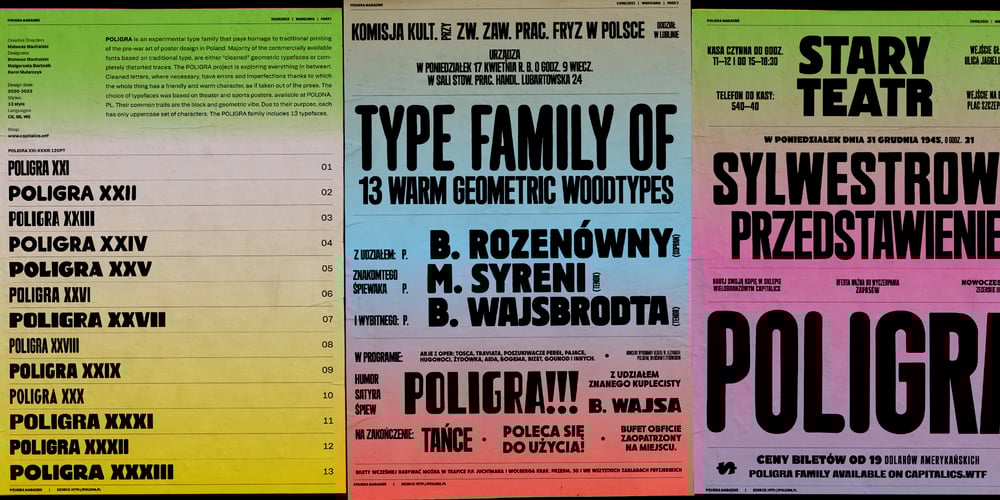
POLIGRA Font Family was designed by Mateusz Machalski, Malgorzata Bartosik, Karol Mularczyk and published by Machalski. POLIGRA contains 13 styles and family package options. POLIGRA is an experimental typefamily and a homage to traditional printing of the pre-war era in Poland. Most of the typefaces based on traditional printing are either clean, geometric typefaces or completely distressed lettering. The POLIGRA project explored everything in between. The letters, cleaned up, redesigned where necessary, and defined in their entirety, have a friendly and warm character, as if taken out of the press. The selection of typefaces was based on theater and sports posters. All of them have blocky and geometric character, each of them is an all-caps typeface. The POLIGRA family includes 13 typefaces.